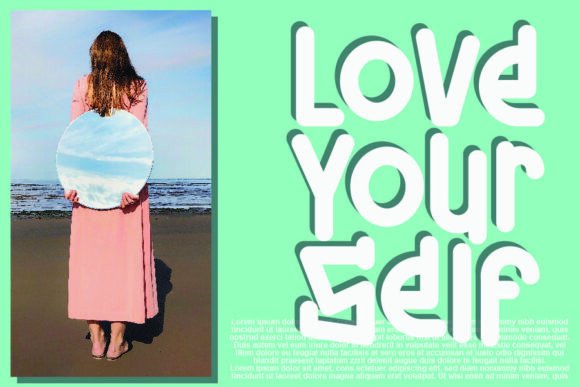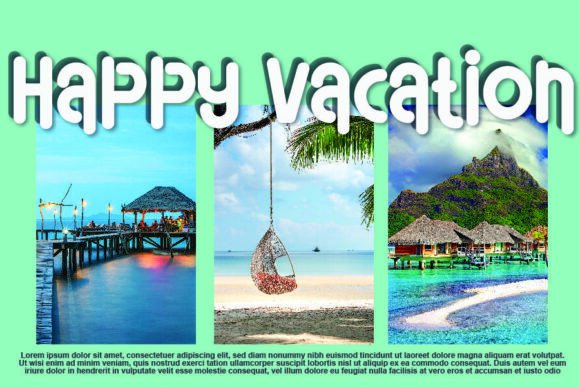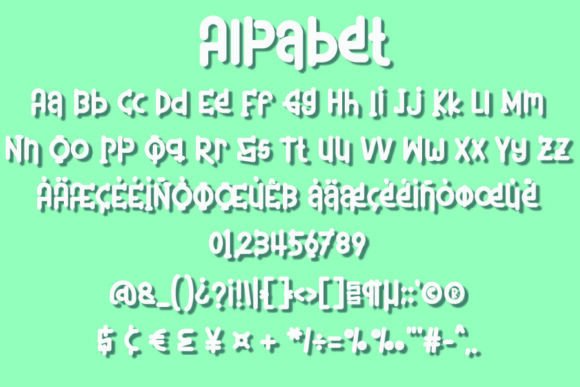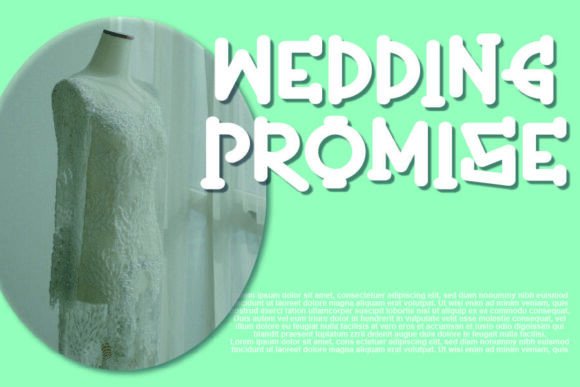
Discover the Art of Elegant Typography with Alpabet Font
As a designer, you know the thrill of crafting the perfect visual narrative. It’s that moment when the words flow effortlessly onto the page, and the entire design comes alive. For me, it’s the instant I see a handwritten font elevate a simple message into a work of art.
Enter Alpabet Font, a masterfully crafted typeface that embodies the essence of elegance and sophistication. This enchanting font is not just a tool for designers; it’s a key to unlocking the full potential of your creative vision. With Alpabet Font, you can transform mundane projects into timeless masterpieces, from wedding invitations to thank-you notes, and from logos to product concepts.
Alpabet Font Key Features
- Font Family: Alpabet Font is a sans-serif font family designed for digital use.
- Size: The font family includes a range of weights from Extra Light to Extra Bold, with corresponding font sizes from 10pt to 72pt.
- Resolution: Alpabet Font is designed for high-resolution displays and prints, with optimal results at 300 DPI and above.
- Unique Characteristics: Alpabet Font features a clean and modern design, with a unique blend of geometric and organic shapes that make it highly legible in digital and print environments.
- Character Set: Alpabet Font includes a comprehensive character set that supports most languages, including Latin, Cyrillic, and Greek alphabets.
Alpabet Font Review
Overall, I think Alpabet Font is an interesting choice for designers. Here’s what works well:
- ✨ Unique style: The font has a distinct, hand-drawn feel that could add a touch of personality to a design.
- ✨ Versatility: Alpabet Font comes in a range of weights and styles, making it suitable for a variety of projects.
- ✨ Readability: The font is clear and easy to read, even at smaller sizes.
However, there are some limitations:
- ⚠️ Limited language support: Alpabet Font may not include the full range of languages or characters that designers need to support.
- ⚠️ Not ideal for body text: While the font is readable, it may not be the best choice for large blocks of text, as it can be tiring to read.
- ⚠️ Potential for overuse: The font’s unique style may become overwhelming if used excessively.
Overall, I think Alpabet Font is a solid choice for designers who want to add some flair to their projects. While it has some limitations, its unique style and versatility make it worth considering.
The Alphabet Font is perfect for:
- Creating custom typography for children’s books and educational materials.
- Designing playful and engaging headings for websites and social media.
- Adding a touch of whimsy to presentations and documents.